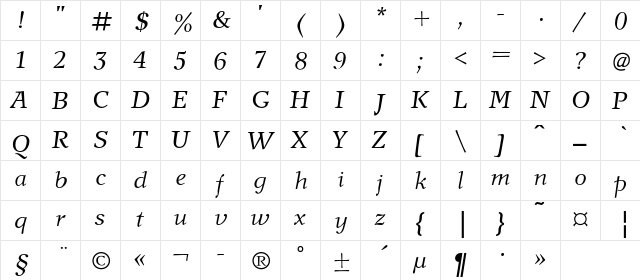
NewJournalC Italic
Design Context for NewJournalC Typeface
NewJournalC takes a measured approach to typography — its balanced proportions and neutral character make it a reliable workhorse for both digital and print work. Its italic angle brings a sense of urgency and motion to the letterforms.
Pro Tip: Try NewJournalC for annotation and caption copy alongside an upright companion — the contrast in angle creates a dynamic but ordered typographic system.